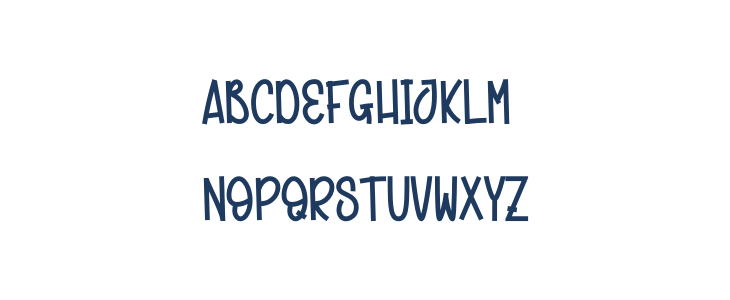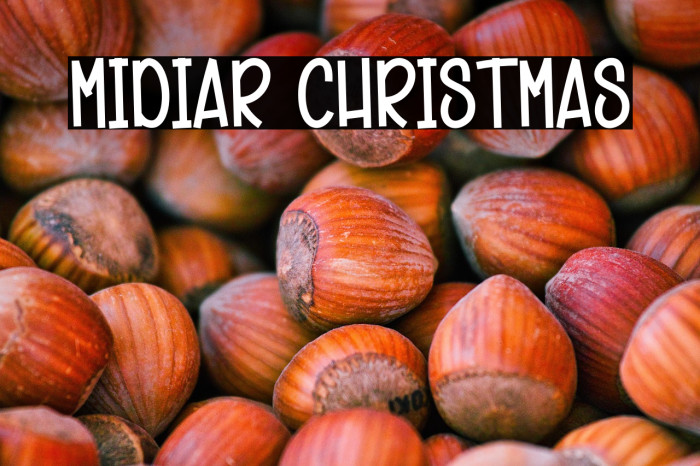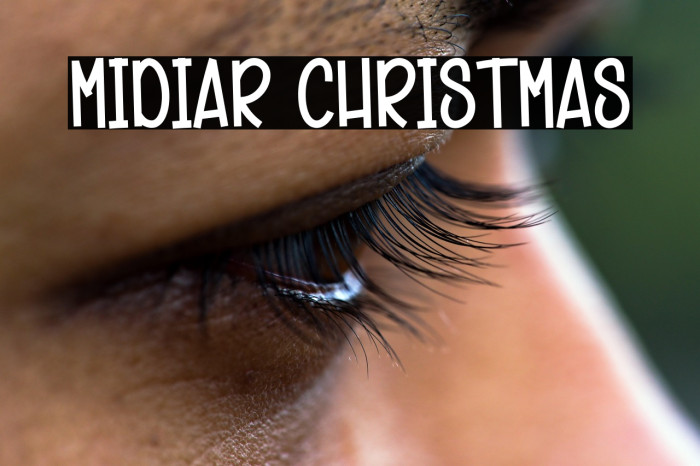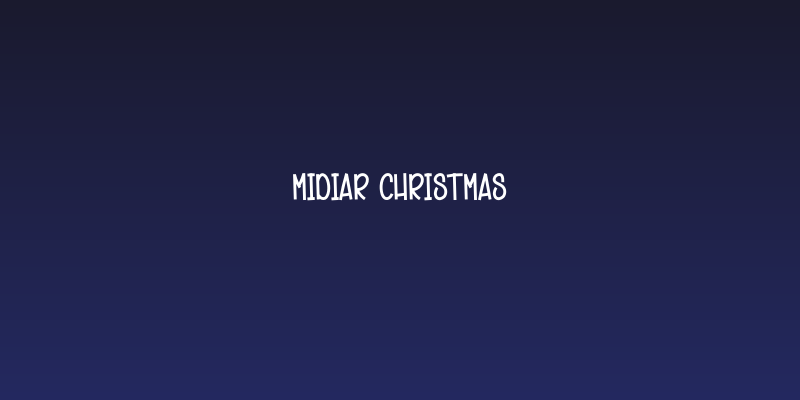
Midiar Christmas Font
Midiar Christmas Description
A playful, hand-drawn sans-serif font with irregular, whimsical letterforms and slightly varying stroke thickness, giving it a casual and festive appearance. The characters are upright with rounded edges and a friendly, informal vibe.
| Overall Style | Decorative, Playful, Festive |
| Use Case | Headlines, Posters, Greeting cards, Invitations |
| Proposed Projects | Holiday cards, children's books, party invitations, festive posters, playful branding. |